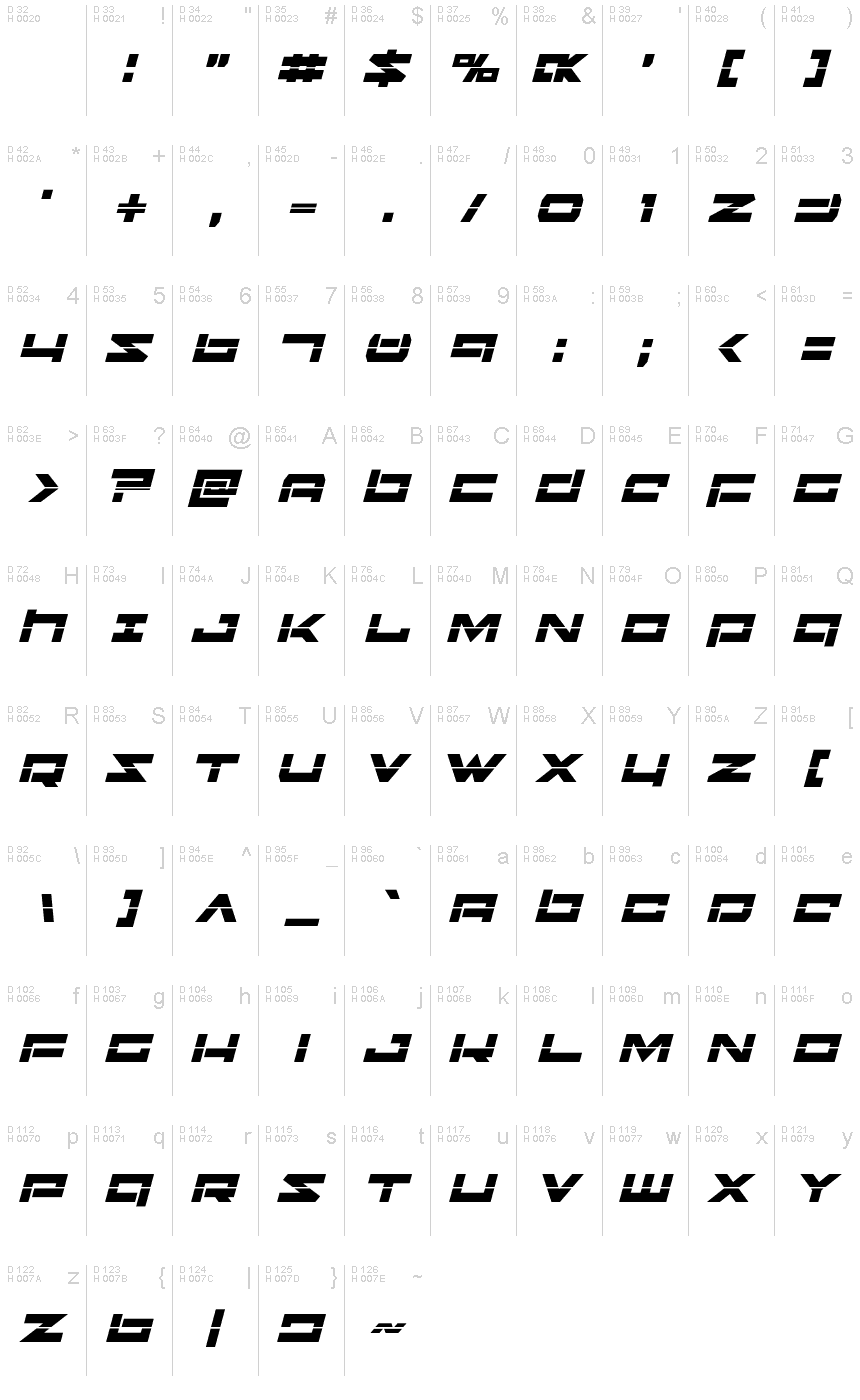
Ninjabot Laser Italic
The Ninjabot Laser Italic font, designed by Iconian Fonts, is a striking display typeface perfect for projects that require an edgy and futuristic aesthetic. Its bold weight combined with the extra-expanded width creates a visually impactful text that demands attention.
This techno-inspired font is ideal for creating eye-catching headlines, logos, and posters in the fields of technology, gaming, and science fiction. With its unique style and powerful presence, Ninjabot Laser Italic adds a touch of modernity and excitement to any design project.